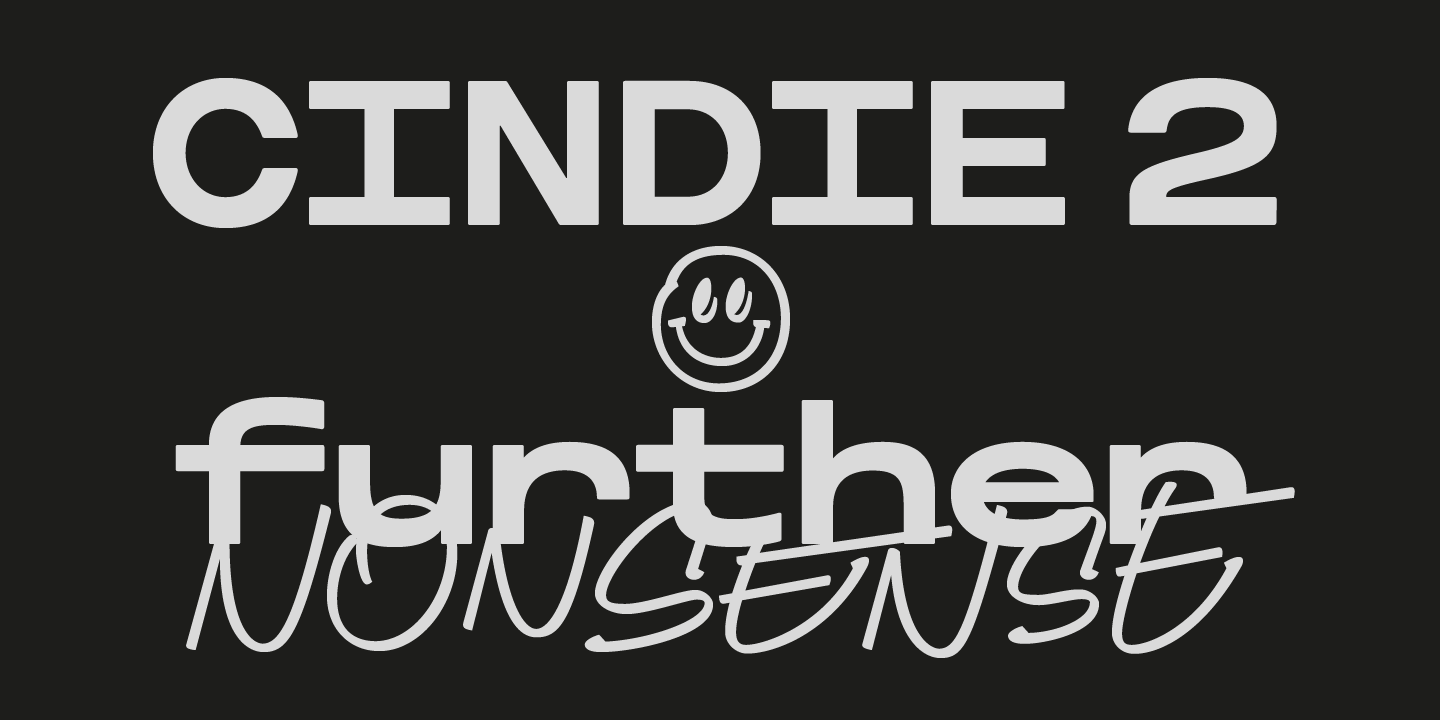
Cindie 2 Font is a strikingly modern and often playful typeface, perfect for designs that aim to convey a sense of digital innovation, futuristic flair, or a unique, structured aesthetic with a hint of experimental edge. Its precise, sometimes geometric or circuit-inspired forms, and clean lines, make it an excellent choice for tech startup branding, gaming interfaces, science fiction media (film, books), and digital art installations. Imagine it gracing the display of a futuristic gadget, providing a sleek and efficient feel to software applications, or adding a crisp, intelligent look to virtual reality environments. This font is also superb for electronic music branding, data visualizations, and any project where precision, modernism, and a forward-thinking visual identity are key. It doesn't just display text; it processes information with an undeniable sense of high-tech order and intelligent design.
What makes Cindie 2 Font so exciting is its remarkable ability to blend functional clarity with a distinct, contemporary style. It possesses a precise and often disciplined character, making it incredibly effective for conveying complex information with elegant simplicity. This unique combination allows designers to create visually compelling content that is both highly readable and effortlessly modern. It’s a font that speaks with a clean, confident voice, making it ideal for brands and content creators who want to convey reliability, technological prowess, and a sophisticated, no-fuss aesthetic. Its strong geometric appeal can make any design feel more cohesive and effortlessly cutting-edge, drawing the eye with its refined structure.
The Cindie 2 Font family typically offers a comprehensive range of weights and styles to provide extensive design flexibility and allow for nuanced typographic expressions. While the exact variations can differ based on the specific design, you can generally expect to find key members that support diverse layout needs, such as:
• Cindie 2 Thin
• Cindie 2 Light
• Cindie 2 Regular
• Cindie 2 Medium
• Cindie 2 SemiBold
• Cindie 2 Bold
• Cindie 2 Black
• Cindie 2 Italic (for most, if not all, weights)
• Cindie 2 Condensed (if available, for space-saving applications)